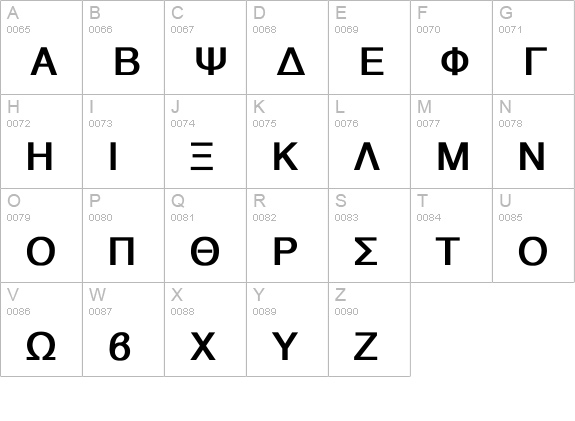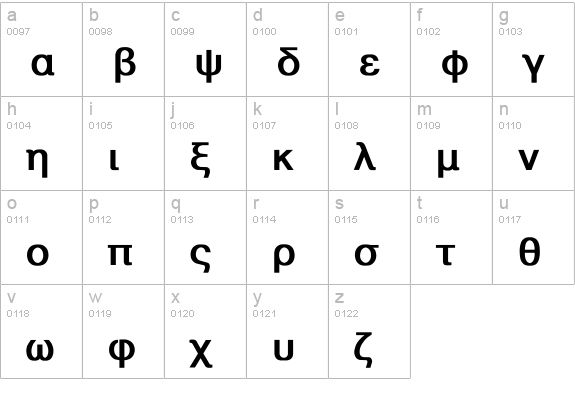
Athens Greek Bold is a strong, high-contrast variant in the Athens typeface family \xE2\x80\x94 well suited to headlines, attention-grabbing titles, and strong calls-to-action.
Athens Greek Bold font exudes a sense of classical elegance and timeless sophistication, making it the perfect choice for projects requiring a touch of Greek charm. Its strong, bold strokes and distinctive Greek lettering give any design a powerful and eye-catching appeal. The clean lines and precise angles of this font make it ideal for headlines, logos, and other prominent design elements. What makes Athens Greek Bold font even more enticing is that it is available for free download at FontsMarket.com. This means you can enhance your projects with this stunning font without any cost, making it a valuable addition to your design toolkit. Don't miss out on the opportunity to elevate your designs with the beauty and grace of Athens Greek Bold font. Download it today and experience the magic of Greek typography at your fingertips.